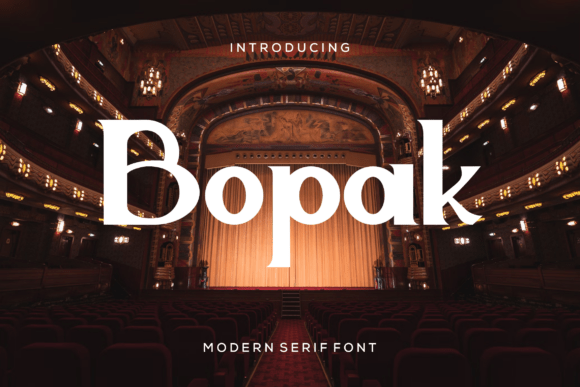
Bopak Font: Elevate Your Design with a Modern Serif Twist
In the realm of typography, fonts play a pivotal role in conveying messages, evoking emotions, and creating lasting impressions. Among the myriad of fonts available, Bopak stands out as a beacon of modernity and creativity. Bopak, a modern serif font, has been meticulously crafted to infuse a playful flair into your designs, making it an ideal choice for attention-grabbing headlines, logos, and a wide array of design projects. This article aims to provide an in-depth exploration of the Bopak font, its characteristics, and the vast possibilities it offers in enhancing your visual communications.
Introducing Bopak Modern Serif Font
Bopak is not just another serif font; it’s a statement piece designed to elevate your brand’s visual identity. Its modern appeal, coupled with a playful edge, positions it as a versatile tool for designers and brands looking to make a mark. Whether you’re working on a digital platform or a print project, Bopak seamlessly adapts, ensuring your message is not only seen but also remembered.
Key Features of Bopak Font
- Modern Aesthetic: Bopak embodies a contemporary look that aligns with current design trends, making it perfect for brands aiming to appear fresh and relevant.
- Playful Flair: What sets Bopak apart is its subtle playfulness, adding a creative twist to traditional serif fonts.
- Versatility: Its adaptability across various mediums, from digital screens to print materials, makes Bopak a go-to font for diverse design projects.
- Readability: Despite its modernity, Bopak maintains high readability, ensuring your message is communicated effectively.
Applications of Bopak Font
The versatility of Bopak makes it suitable for a myriad of applications. Here are some of the areas where Bopak can make a significant impact:
Use Cases for Bopak
- Headlines and Titles: Use Bopak to create compelling headlines and titles that capture attention and convey your message with impact.
- Logo Design: Incorporate Bopak into your logo design to give your brand a modern and distinctive look.
- Digital Content: Enhance your website, blog, or social media content with Bopak, making your digital presence more engaging.
- Print Materials: From brochures and posters to business cards and letterheads, Bopak brings a touch of elegance and modernity to your print materials.
Why Choose Bopak for Your Design?
In a world where design trends are constantly evolving, having a font that can keep pace is invaluable. Here are reasons why Bopak should be your preferred choice:
Reasons to Opt for Bopak
- Unique Identity: Bopak helps in creating a unique visual identity for your brand, setting you apart from competitors.
- Flexibility: Its suitability for both digital and print designs offers flexibility, making it a cost-effective solution for your font needs.
- Emotional Connection: The playful yet sophisticated nature of Bopak can help in creating an emotional connection with your audience.
How to Use Bopak Effectively in Your Designs
To maximize the potential of Bopak, consider the following tips:
Tips for Effective Use of Bopak
- Pairing: Experiment with pairing Bopak with complementary fonts to create visual hierarchy and enhance readability.
- Size and Weight: Utilize different sizes and weights of Bopak to add depth and emphasis to your design.
- Color: Choose colors that align with your brand’s palette to maintain consistency and reinforce your brand identity.
Bopak Modern Serif Font emerges as a powerful tool in the world of design, offering a blend of modernity, playfulness, and versatility. Whether you’re a seasoned designer or a brand looking to elevate your visual identity, Bopak presents a compelling solution. By incorporating Bopak into your designs, you’re not just choosing a font; you’re embracing a design philosophy that prioritizes impact, creativity, and connection.